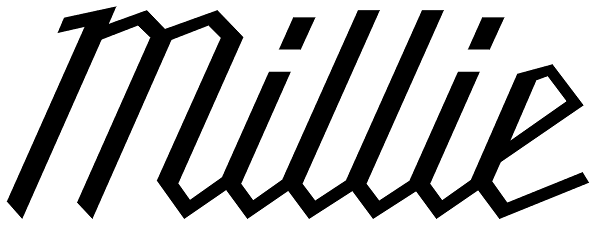
Millie
Millie is a stressed, geometric script who spends her days as industrial lettering and her nights paired with blackletter on the patches of motorcycle gangs. Millie was weighted by the conventions of broad nib calligraphy, inspired by the Milwaukee...